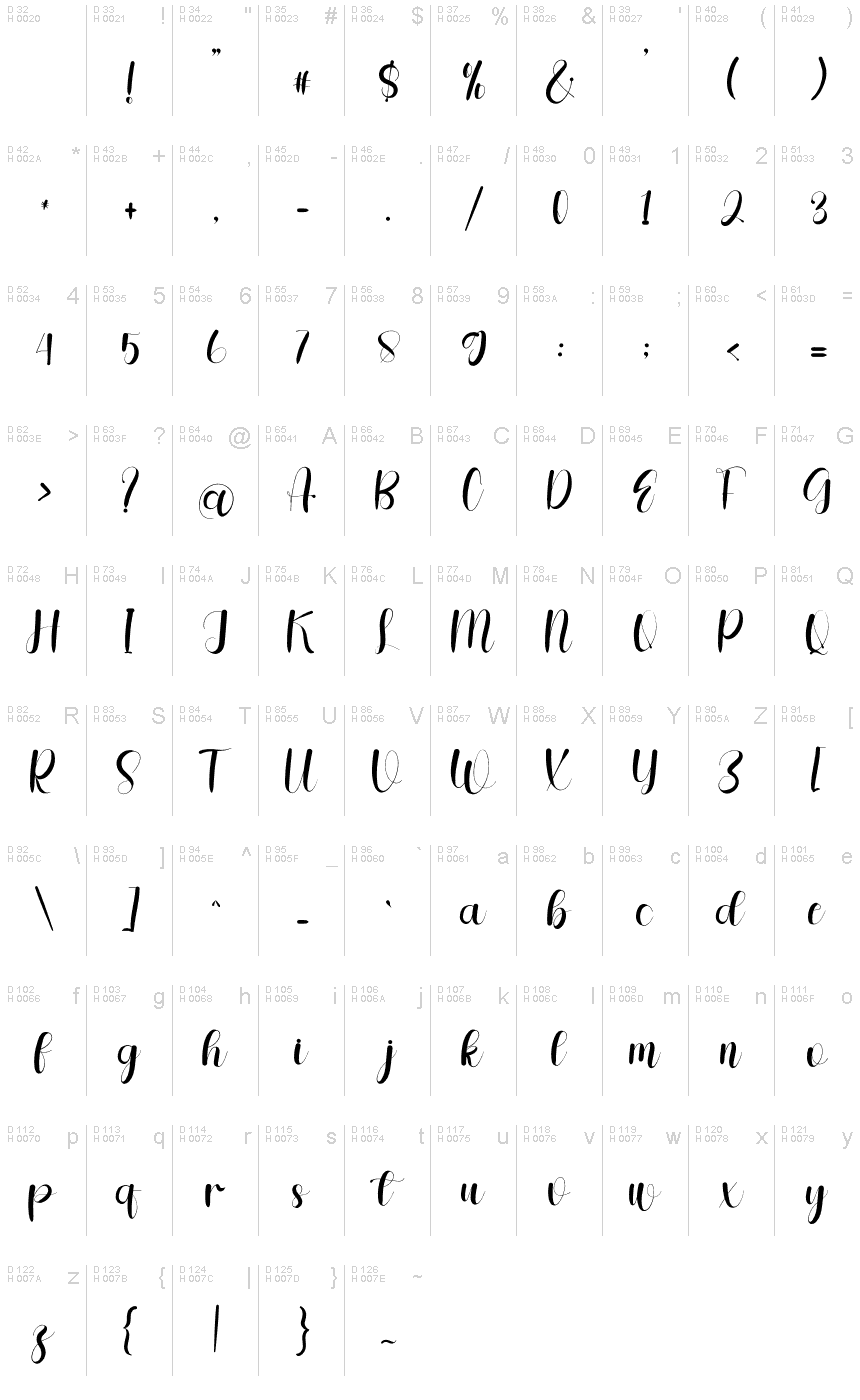
Qualitytime
Qualitytime is a captivating handwritten font designed by FreshtypeINK. With its elegant calligraphy style, this font is perfect for various creative projects.
Its fluid strokes and organic curves make it ideal for wedding invitations, greeting cards, and personal stationery. The delicate yet legible characters of Qualitytime also lend themselves well to branding materials, such as logos and packaging designs. Whether you're working on a whimsical children's book or a sophisticated fashion magazine, this font will bring an enchanting touch to your project.